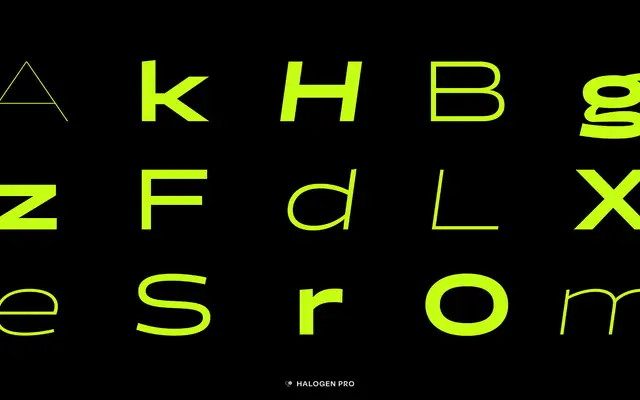
Halogen Pro
Positype · Neil Summerour · 2011
A remastered 2024 edition of Neil Summerour's 2011 geometric extended sans, now covering Latin, Cyrillic and Greek across 42 styles.
Originally released in 2011, Halogen gained a following for its confident geometry and generous x-height, departing from purely utilitarian extended sans conventions. The 2024 Pro edition adds Cyrillic and Greek script support, expands the character set substantially and introduces the Halogen Soft variant alongside the existing Flare and Slab branches. Forty-two styles span seven weights from Hairline to Black with matching obliques, and OpenType features include small caps, oldstyle figures, fractions, swash alternates and case-sensitive forms.
Halogen Pro is a geometric extended sans-serif with a generous x-height and strong stylistic character, sitting firmly in the geometric sans category with display tendencies across its weight range.